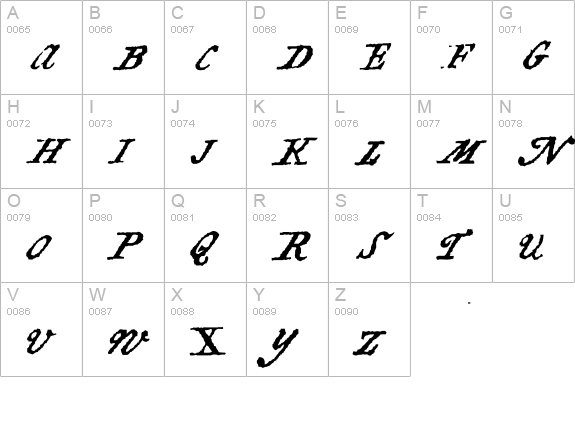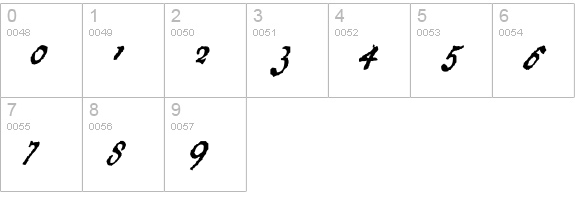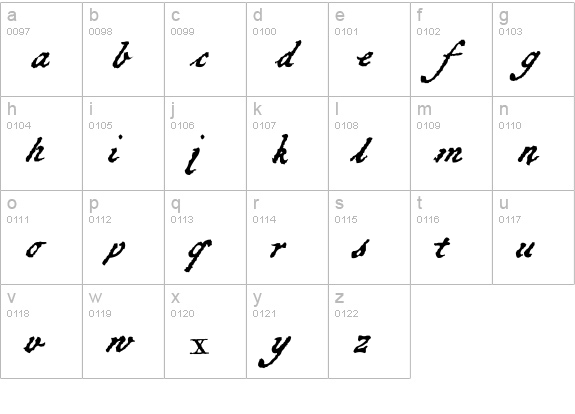
Black Sam's Gold Font Details
Black Sam's Gold is a maximum-weight, dramatic variant in the Black typeface family \xE2\x80\x94 well suited to maximum-impact headlines, posters, and packaging.
Immerse yourself in the allure of Black Sam's Gold font, a captivating typeface that exudes elegance and sophistication. With its bold and intricate design, this font commands attention and adds a touch of luxury to any project. Inspired by the mystique of hidden treasures and pirate lore, Black Sam's Gold font is the perfect choice for branding, headlines, and any design that calls for a touch of opulence. The best part? Black Sam's Gold font is available for free download at FontsMarket.com. Yes, you read that right - you can add this stunning font to your collection without spending a dime. So why wait? Unleash your creativity and elevate your designs with the exquisite beauty of Black Sam's Gold font today.